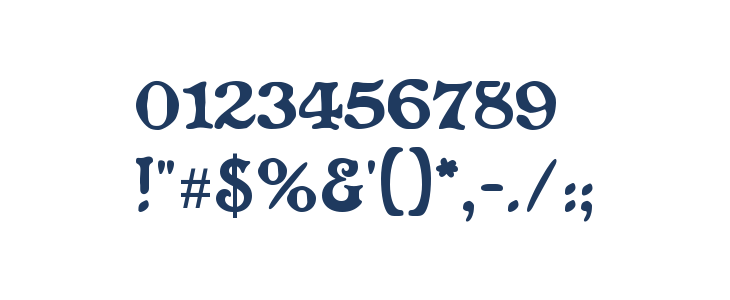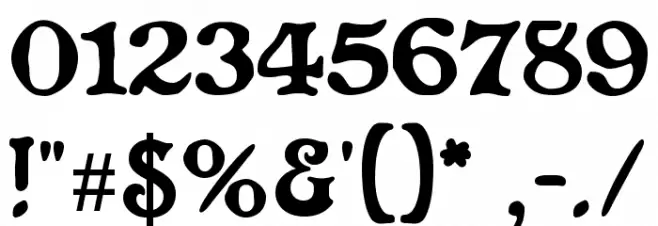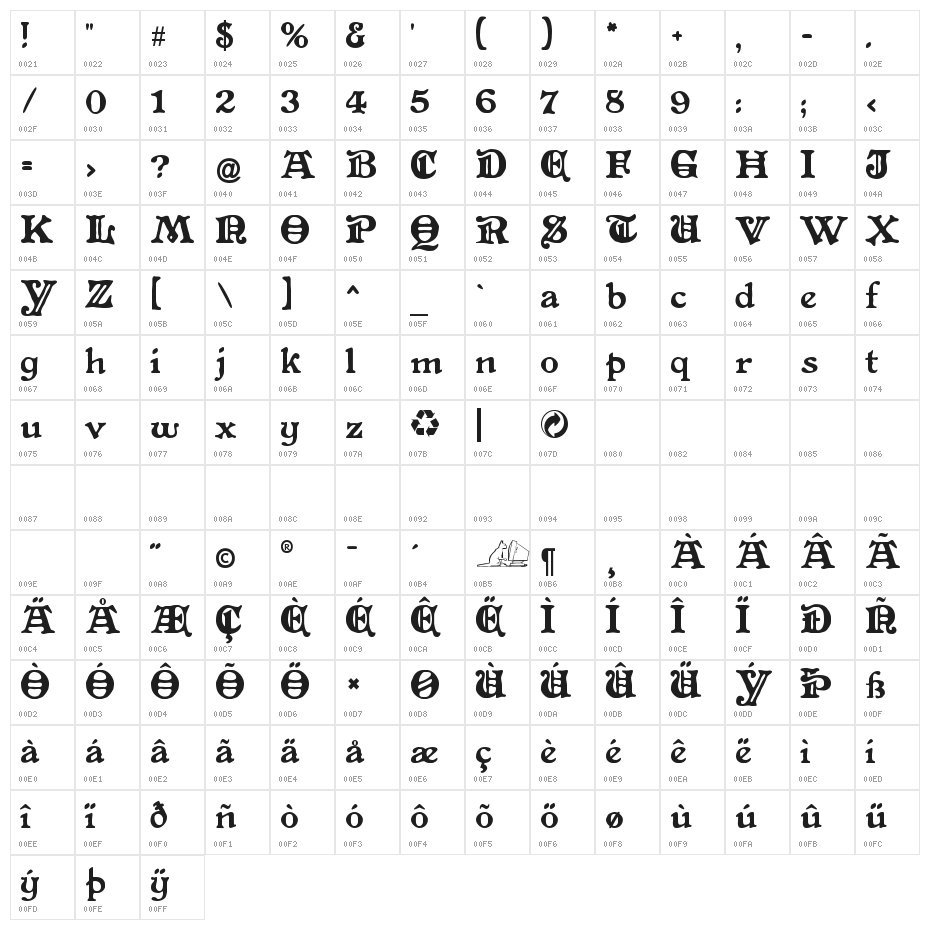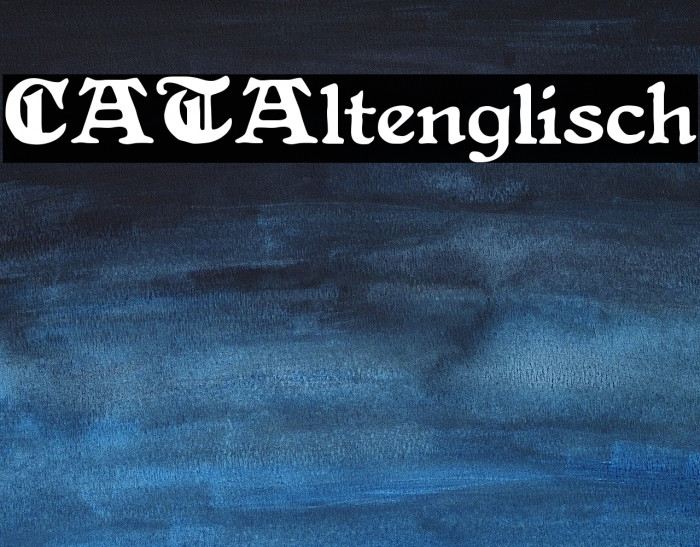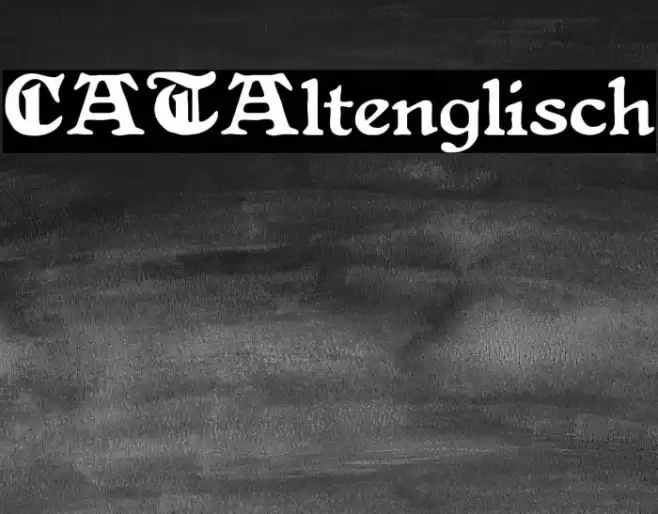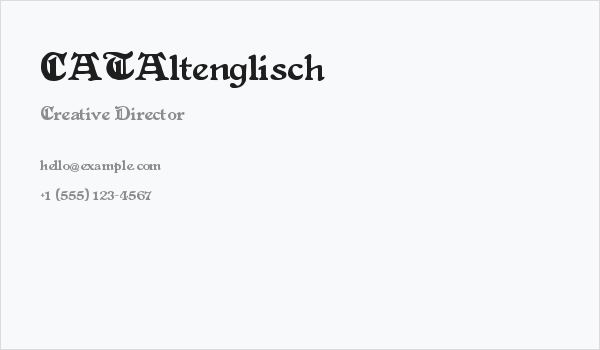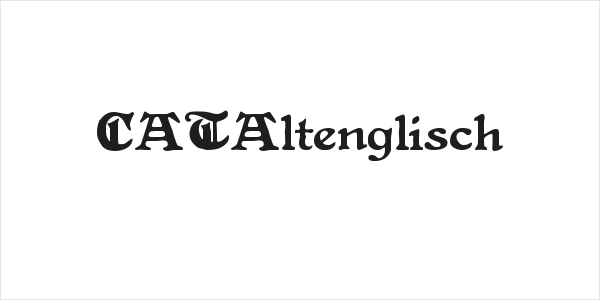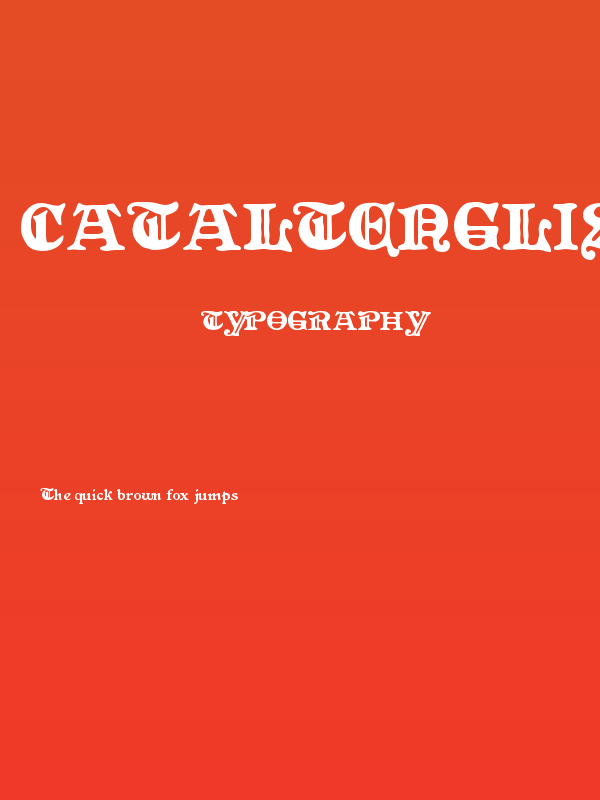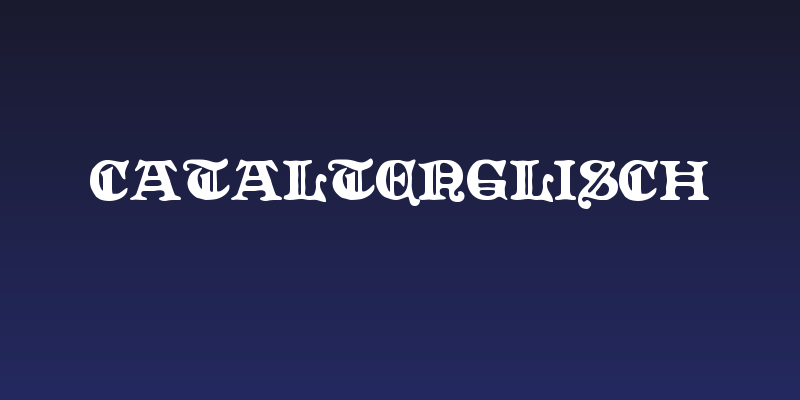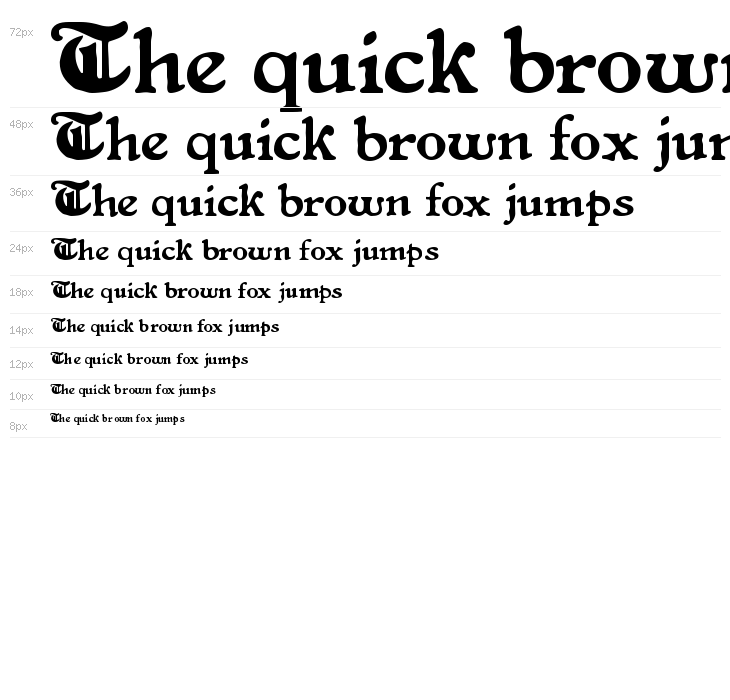
CATAltenglisch Font
CATAltenglisch Description
This font exhibits a classic blackletter style, characterized by its intricate and ornate letterforms. The uppercase letters feature sharp, angular lines with decorative flourishes, while the lowercase letters maintain a more rounded yet still elaborate appearance. The numerals are bold and consistent with the overall style, providing a cohesive look. Special characters are designed with the same attention to detail, ensuring they blend seamlessly with the rest of the typeface. This font's historical and traditional aesthetic makes it suitable for projects that require a touch of elegance and sophistication.
| Use Case | Logos, Headlines, Certificates |
| Proposed Projects | Ideal for historical documents, certificates, invitations, and branding that requires a traditional and elegant touch. |